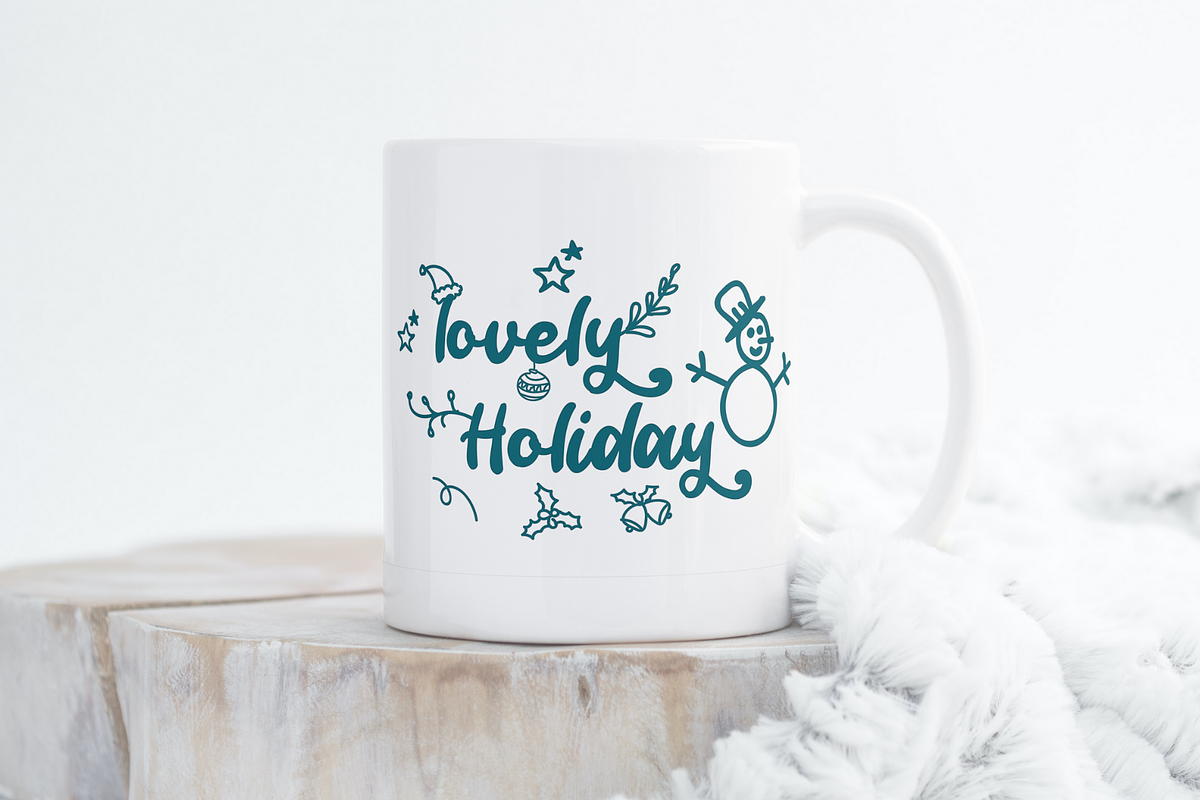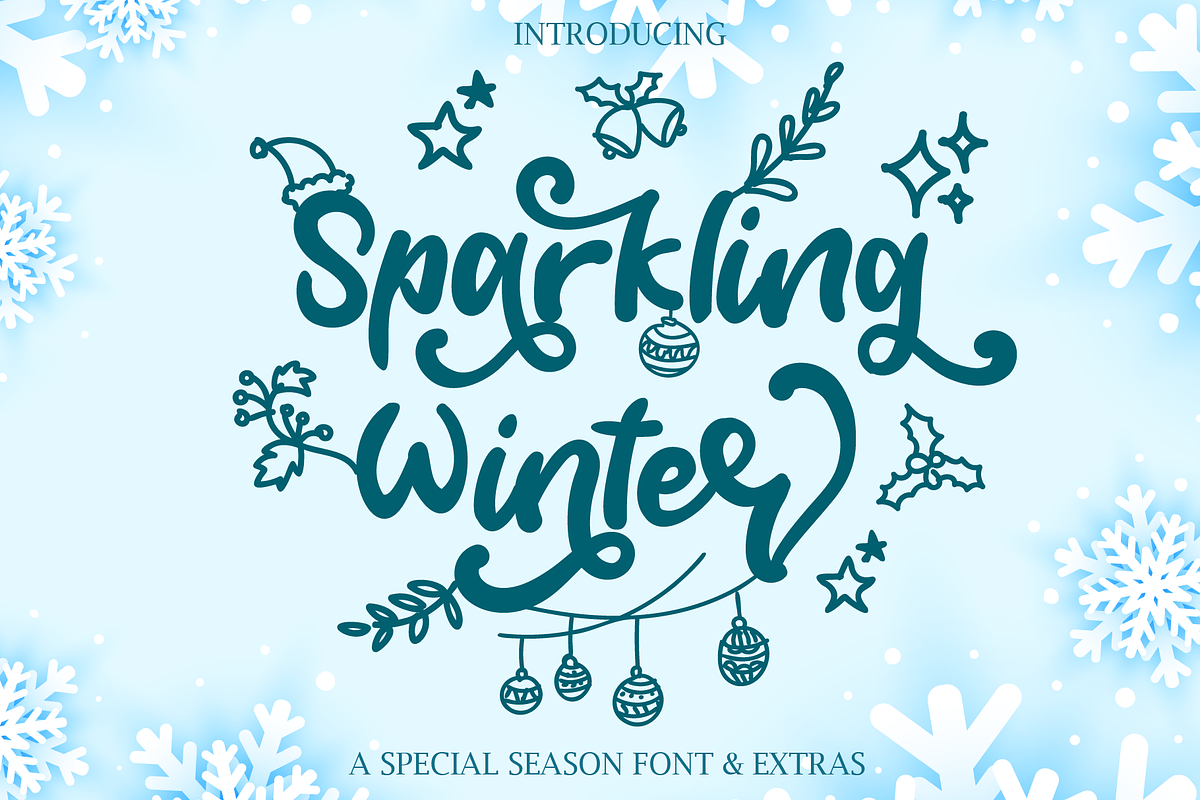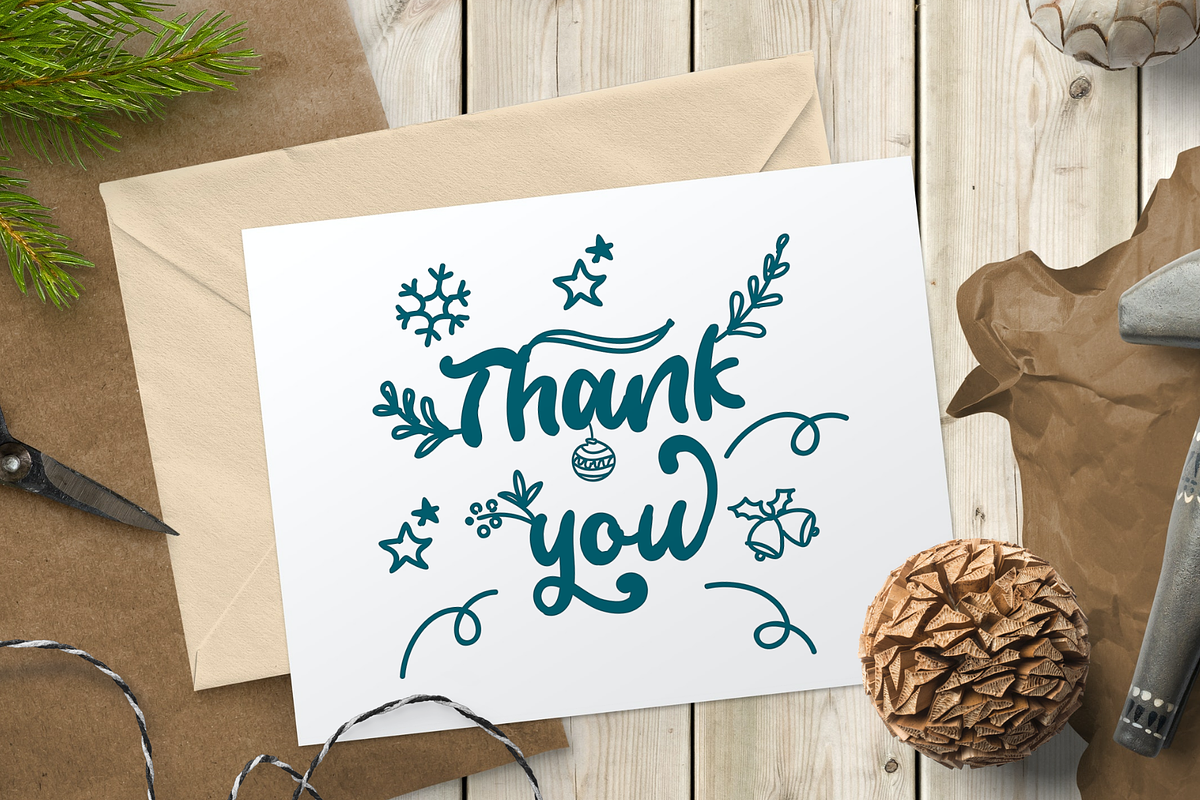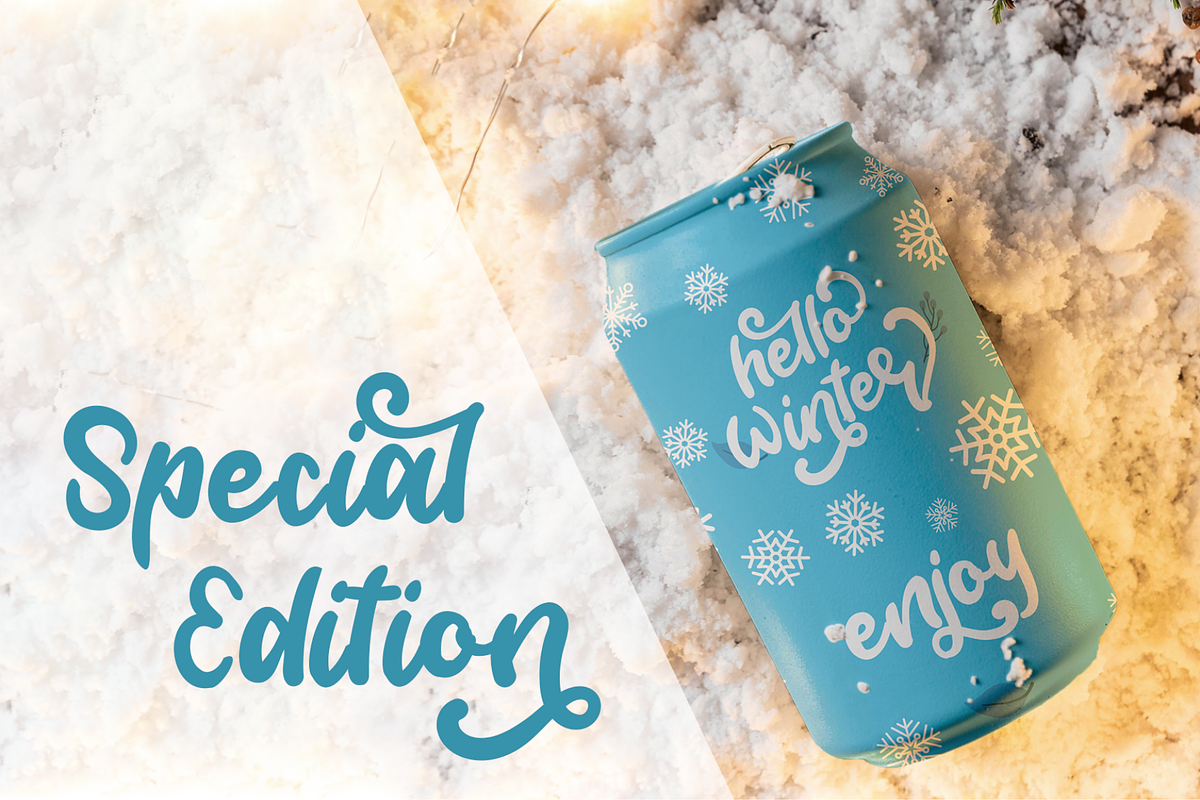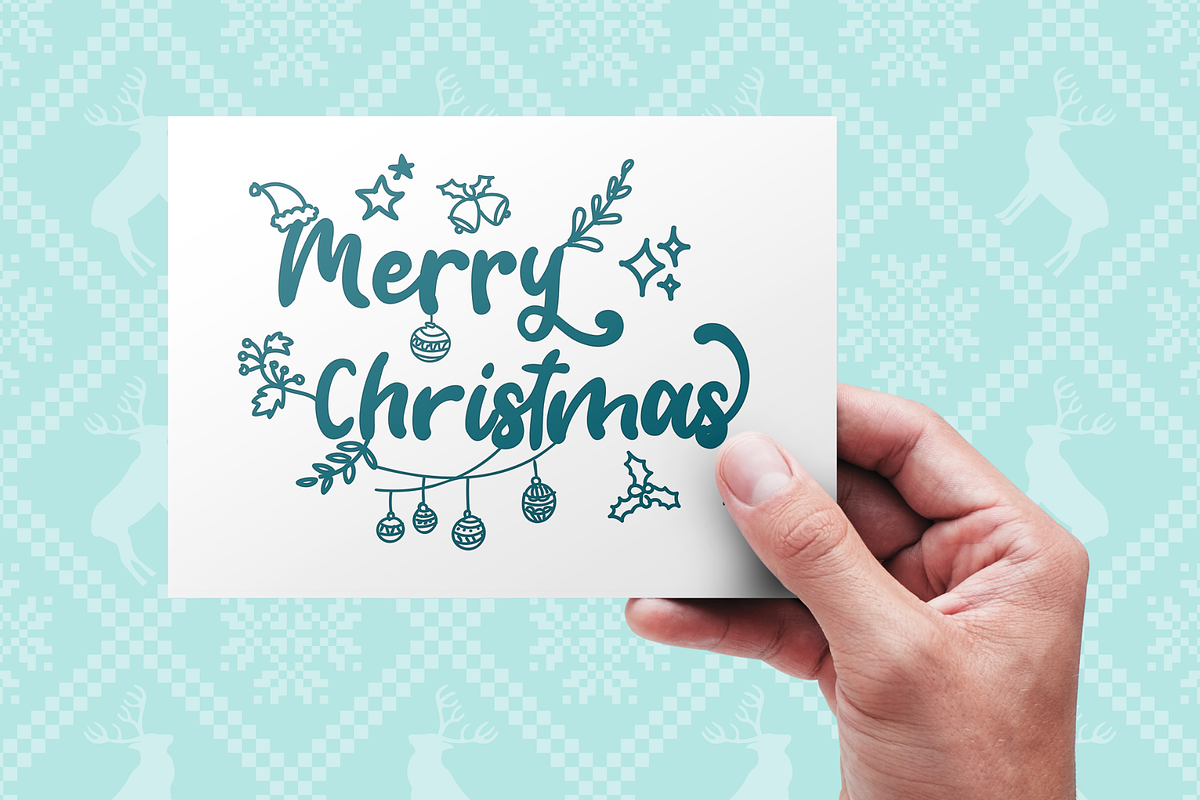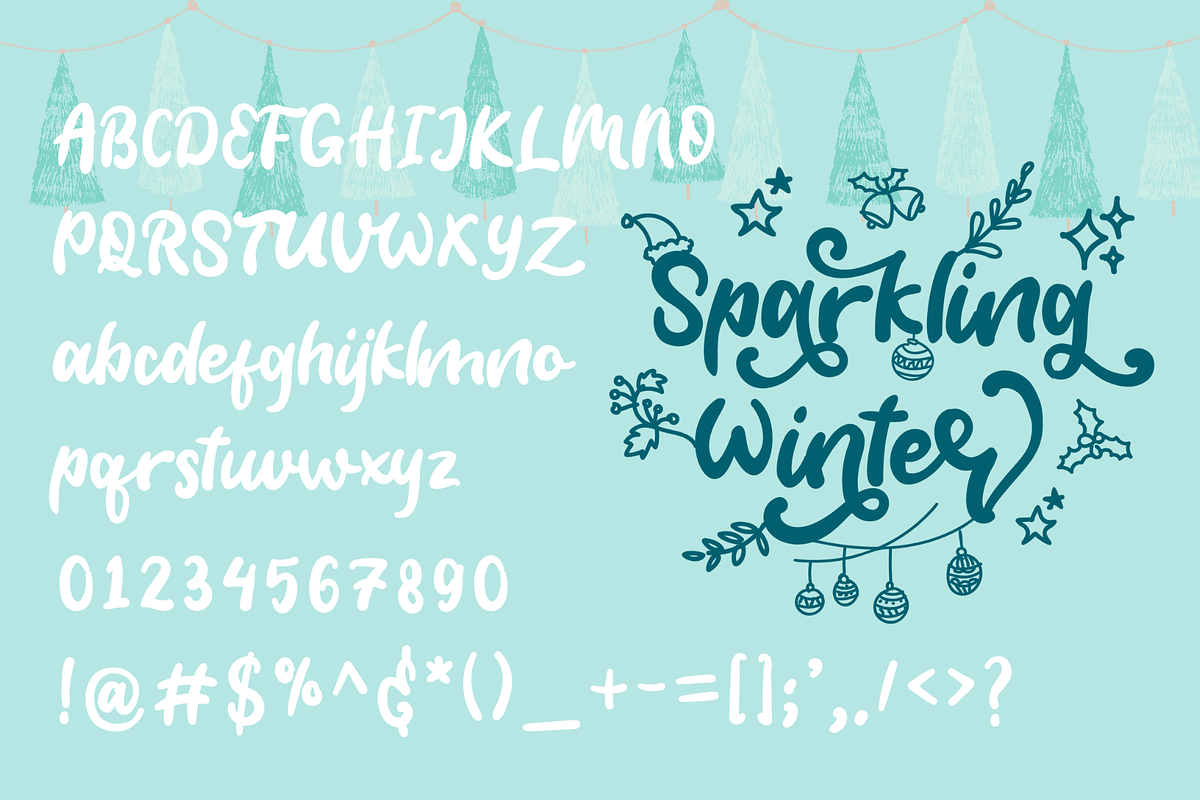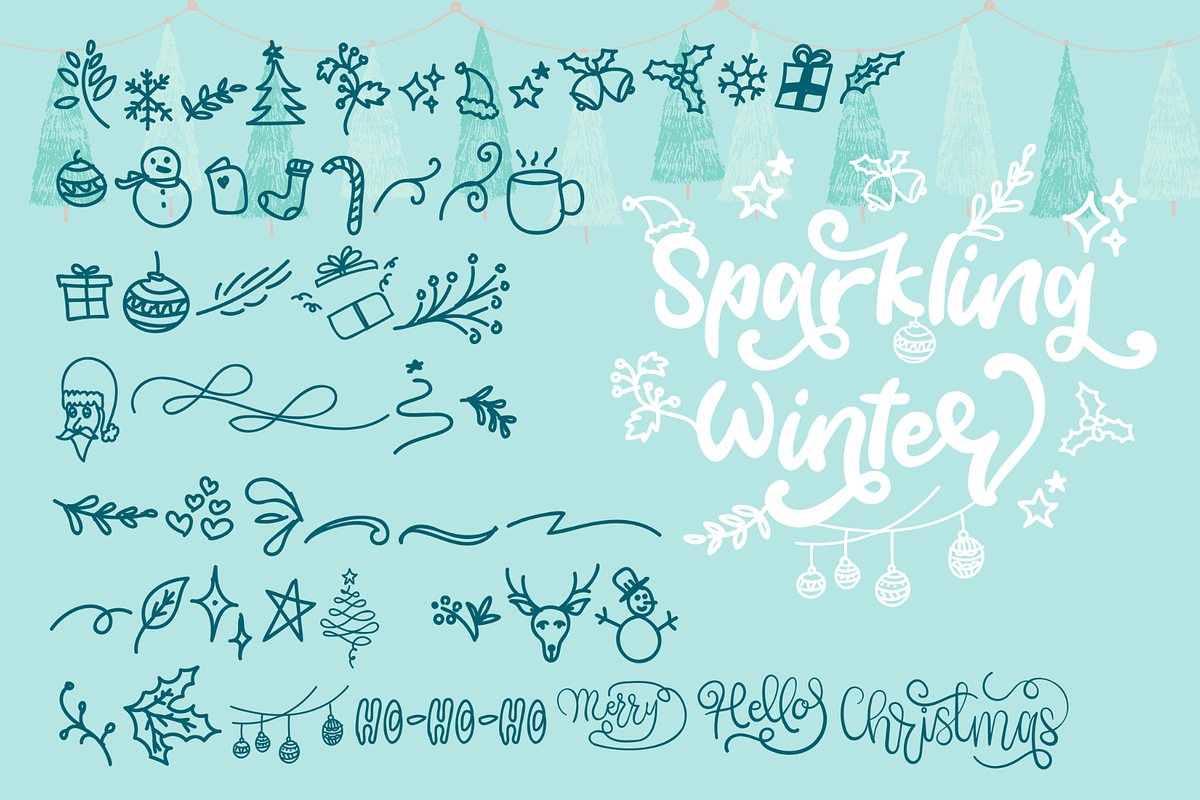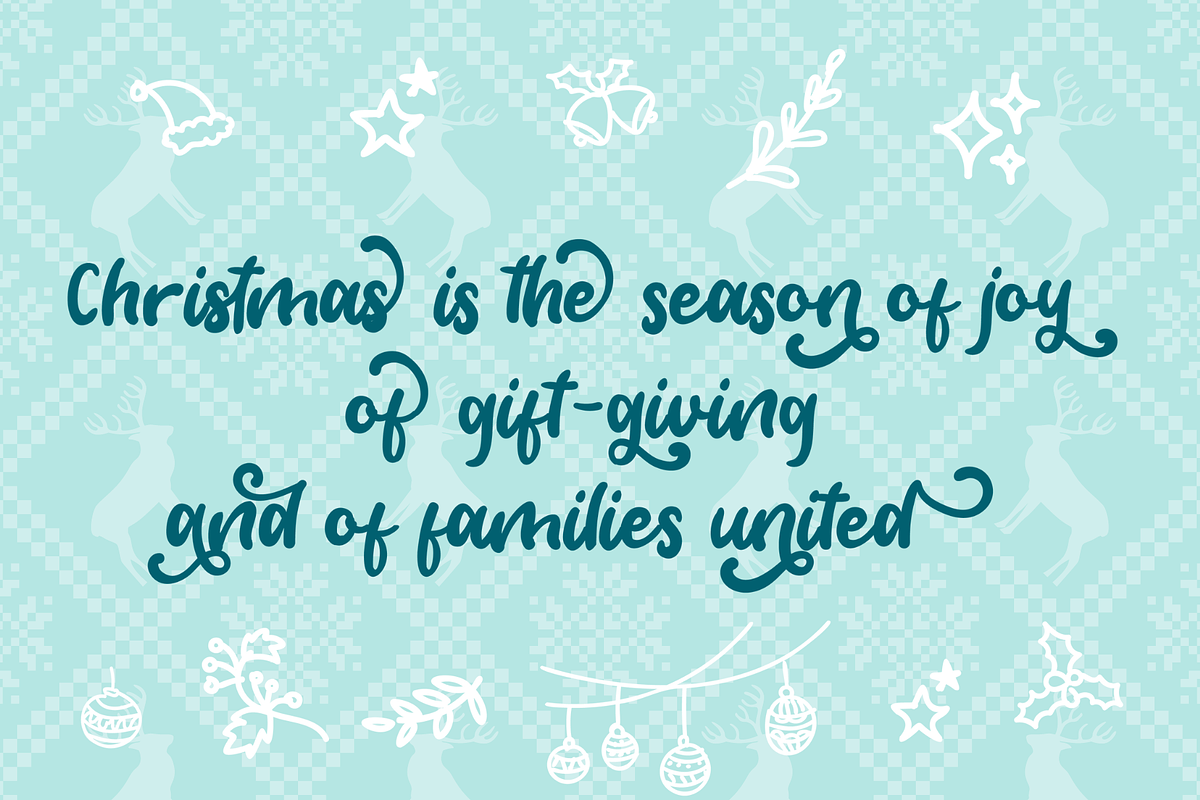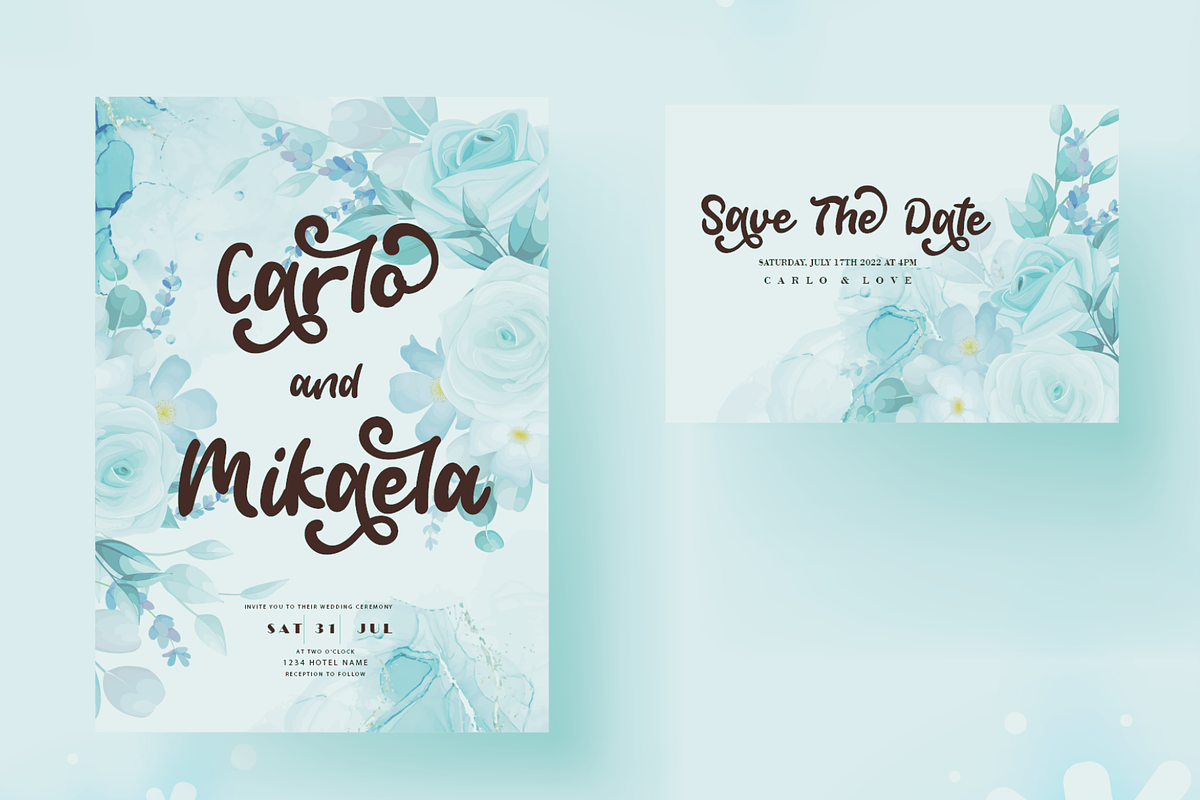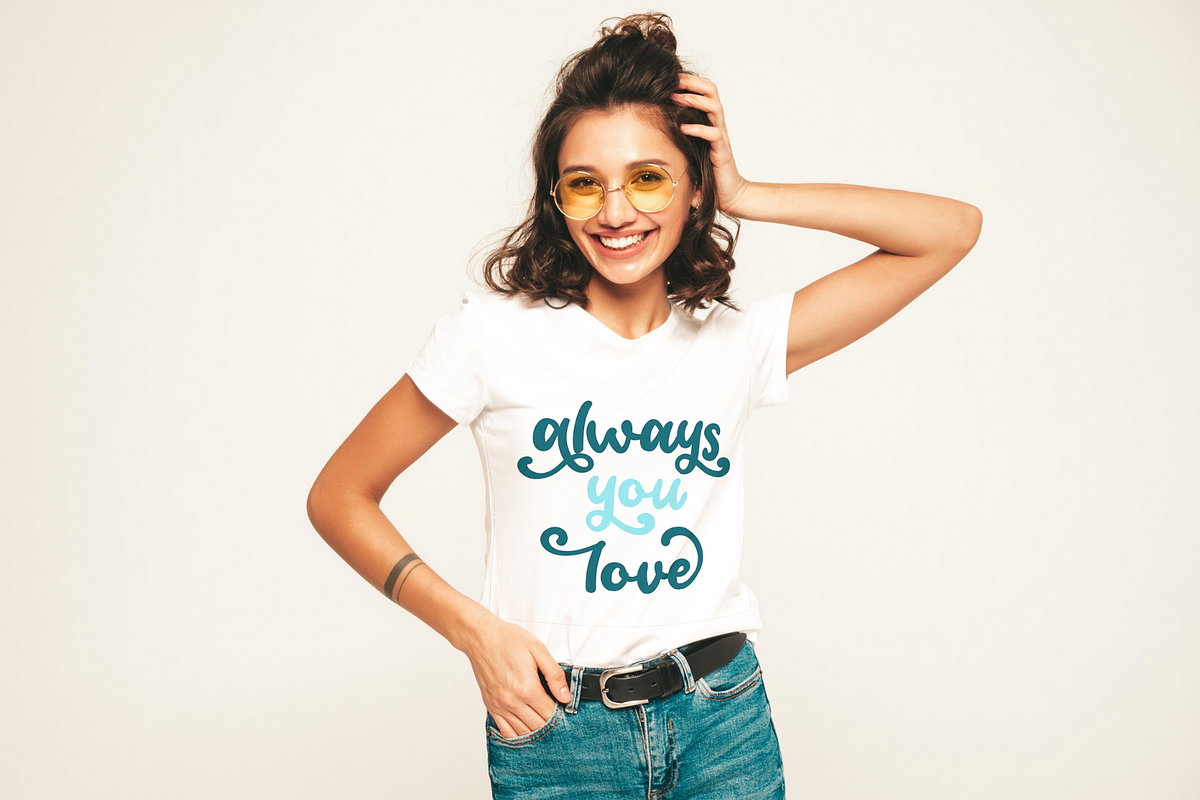
Sparkling Winter – Holiday Font
Proudly Present — Sparkling Winter - Holiday Font
Sparkling Winter is a festive script font full of cheer and charm. Crafted with a hand-lettered style and playful swashes, this font brings the warmth and sparkle of the season to any project. It’s perfect for Christmas cards, holiday packaging, social media posts, apparel, and much more.
This font also includes fun winter-themed extras such as holly, stars, ornaments, and snow doodles to elevate your designs with a touch of magic.
Bonus doodles in vector and font format
Uppercase & lowercase
Numerals & punctuation